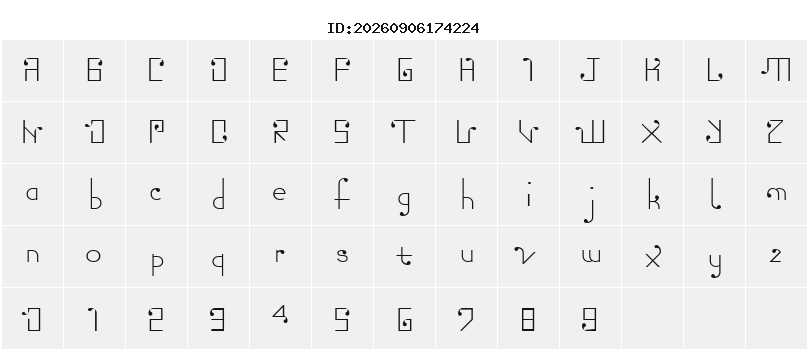
TORN Preview
• Font Name: TORN
• Full Font Name: TORN
About TORN.ttf
TORN.ttf is a modern, elegant sans-serif font designed for ultimate readability and visual harmony. Perfect for branding, headlines, web design, and print materials.